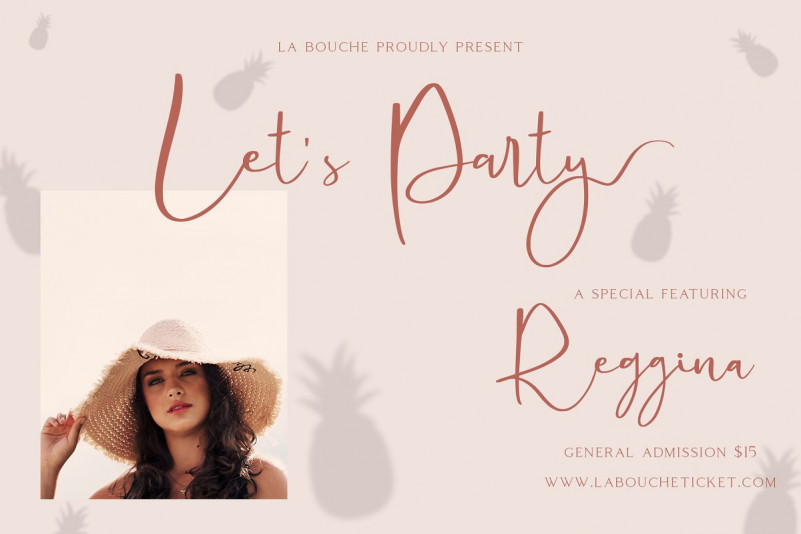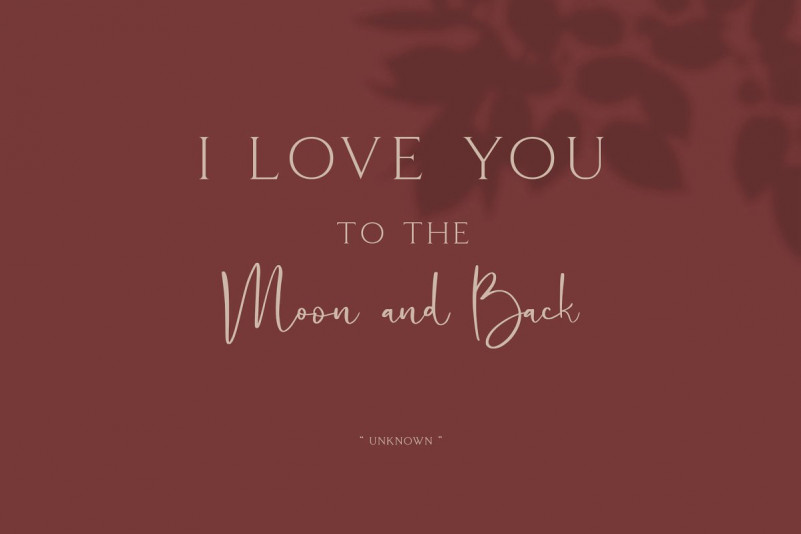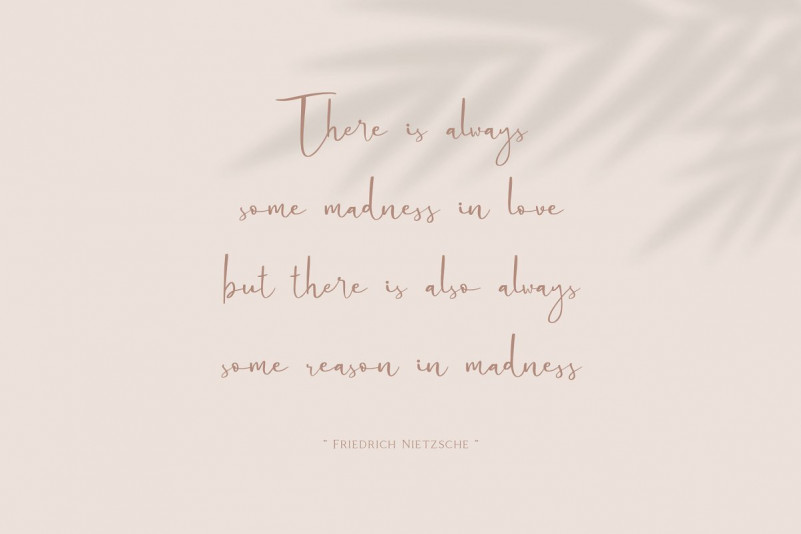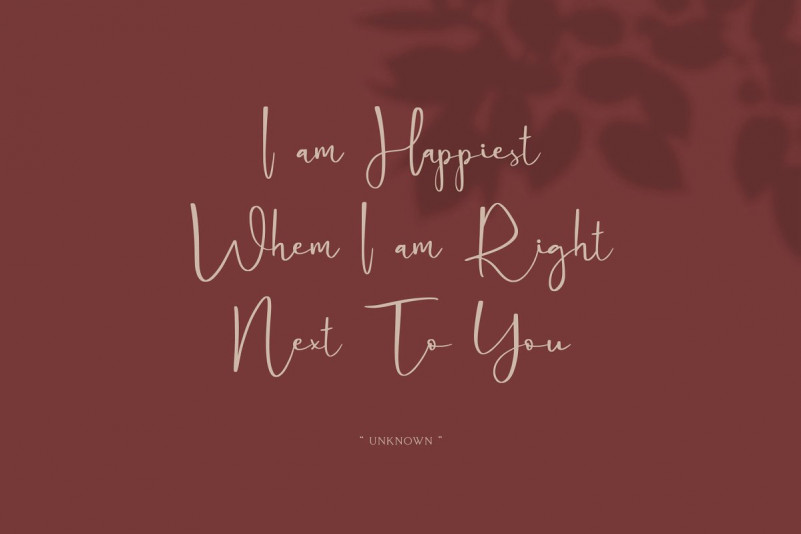
Cattus Script Font
Cattus Script – Demo Font
Say hello to the Cattus Font! This is a seductive font that is made with a touch of elegance and feeling to give the best touch, an elegant combination of a script. Cattus Modern Casual Script Font is designed and shared by Craft Supply Co.. It’s an handwritten script font based on the expression of real handwriting. It’s will work perfectly for fashion, e-commerce brands, trend blogs, wedding boutiques or any business that wants to appear upscale and chic.
It’s also Suitable for Logo, greeting cards, quotes, posters, branding, name card, stationary, design title, blog header, art quote, typography, art, modern envelope lettering or book design, happening style like handdrawn design or watercolor design theme, craft design, any DIY project, book title, or any purpose to make your art/design project look pretty and trendy.